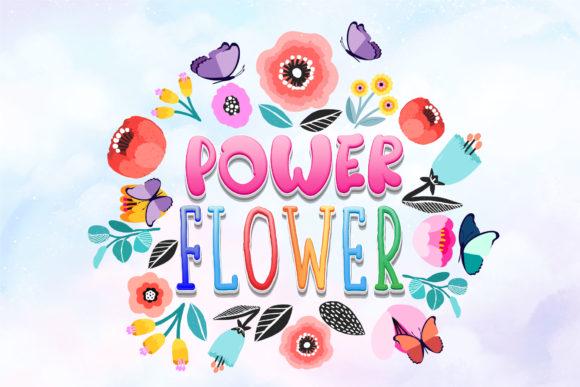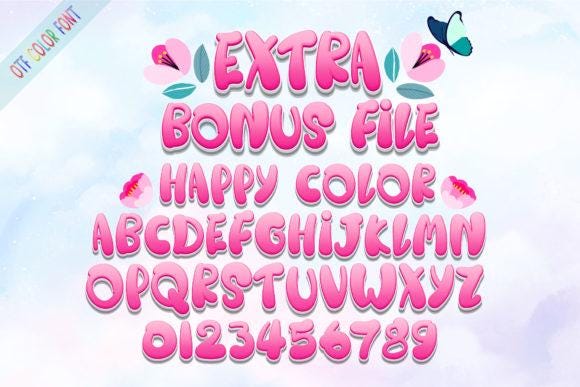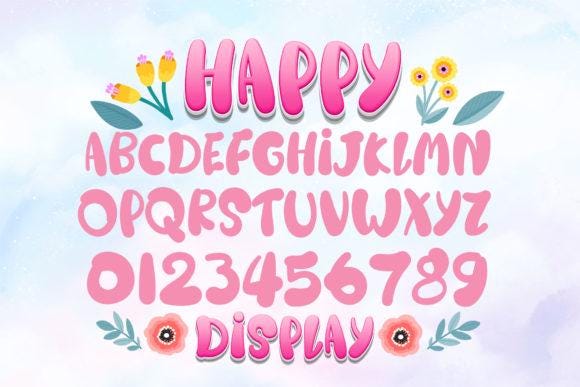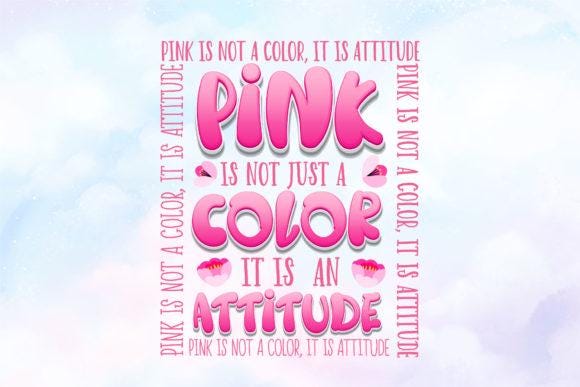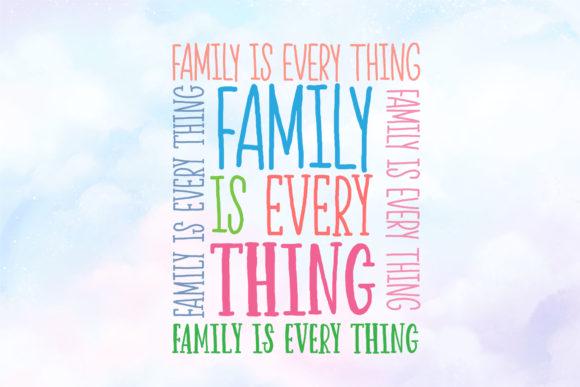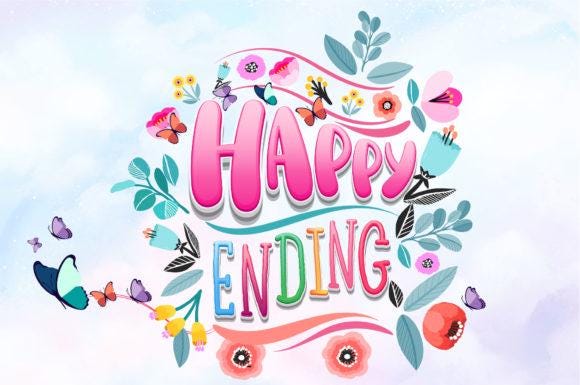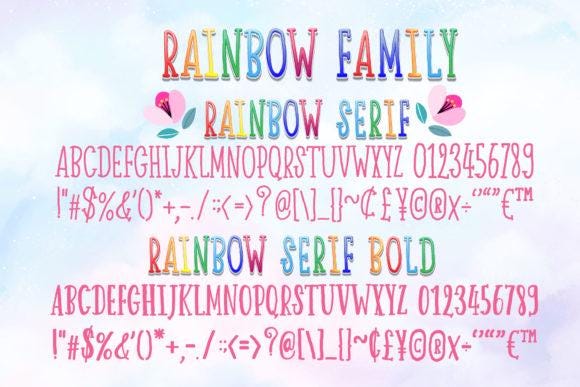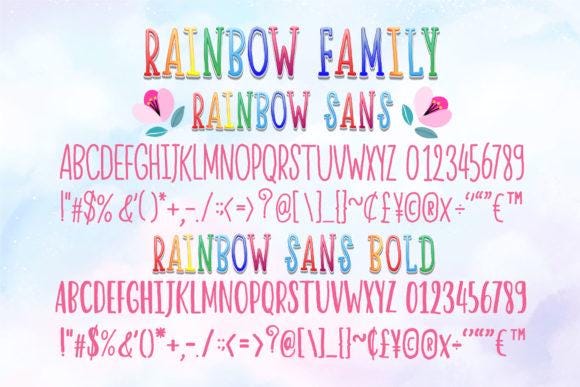
Happy Rainbow Family Font
Happy Rainbow Family is a lovely and cheery trio font (display, serif and script). It embodies playfulness and authenticity and is the perfect choice for any children activity or school project.